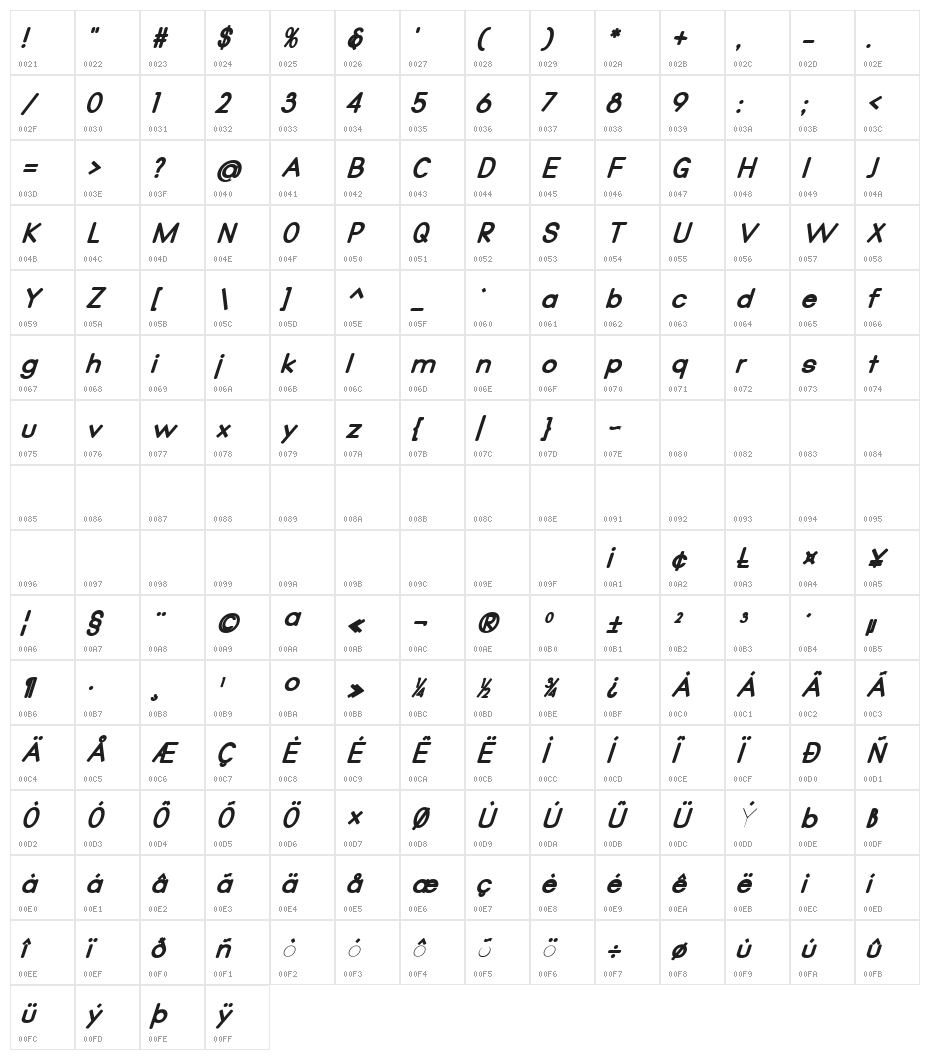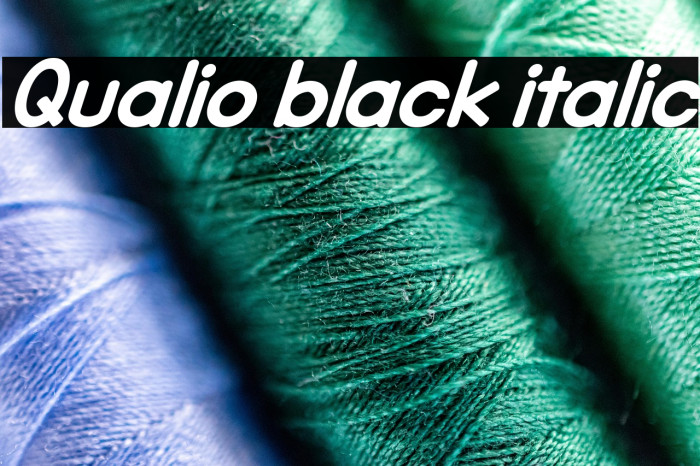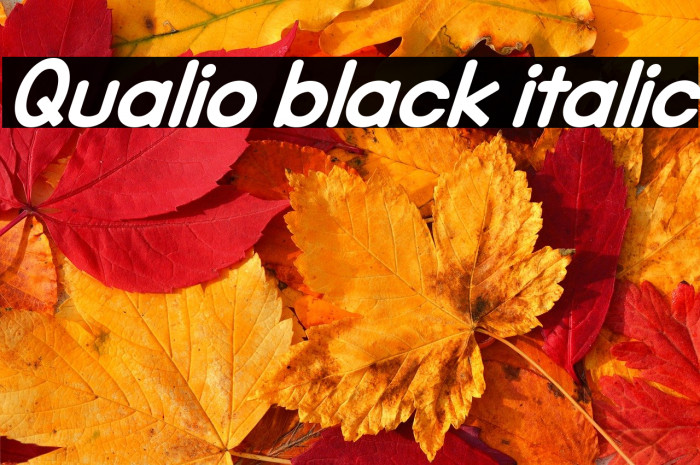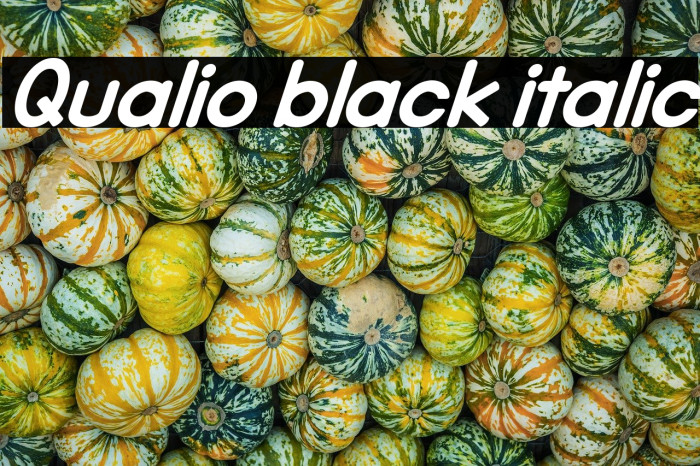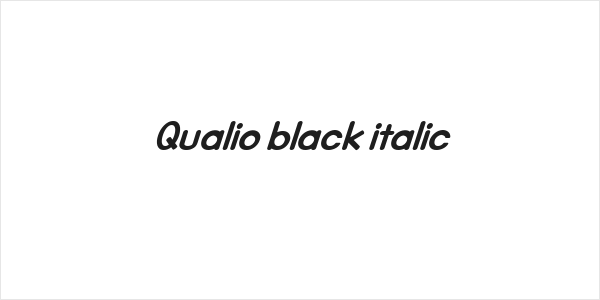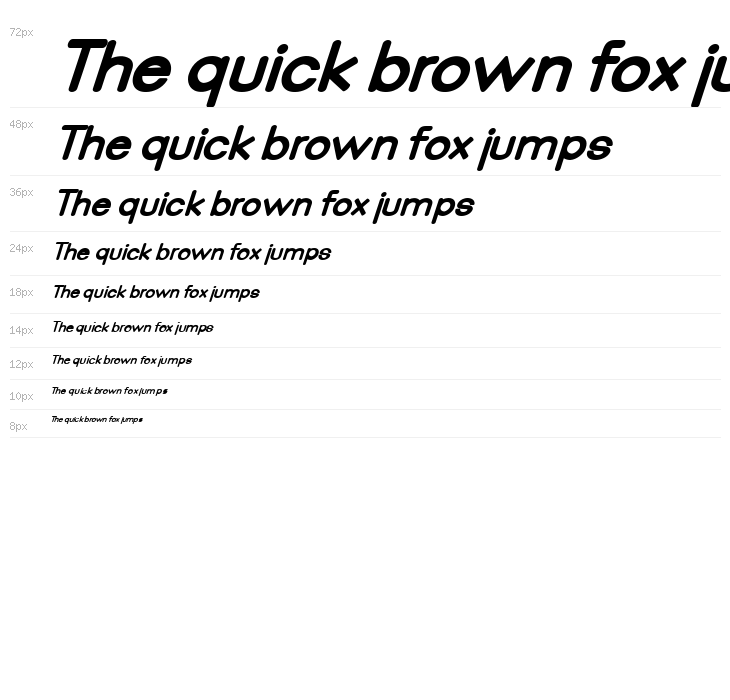
Qualio black italic Font
Qualio black italic Description
This font features a bold and italicized style, characterized by smooth, rounded edges and a slight slant that gives it a dynamic and modern appearance. The letters are evenly spaced, providing a clean and cohesive look. The uppercase and lowercase letters maintain a consistent weight, contributing to its bold presence. The numbers and special characters are designed with the same attention to detail, ensuring uniformity across all elements. The overall design is sleek and contemporary, making it suitable for a variety of design projects that require a strong visual impact.
| Use Case | Headlines, Logos, Advertising |
| Proposed Projects | Ideal for branding, advertising, headlines, and digital media projects that require a bold and modern aesthetic. |